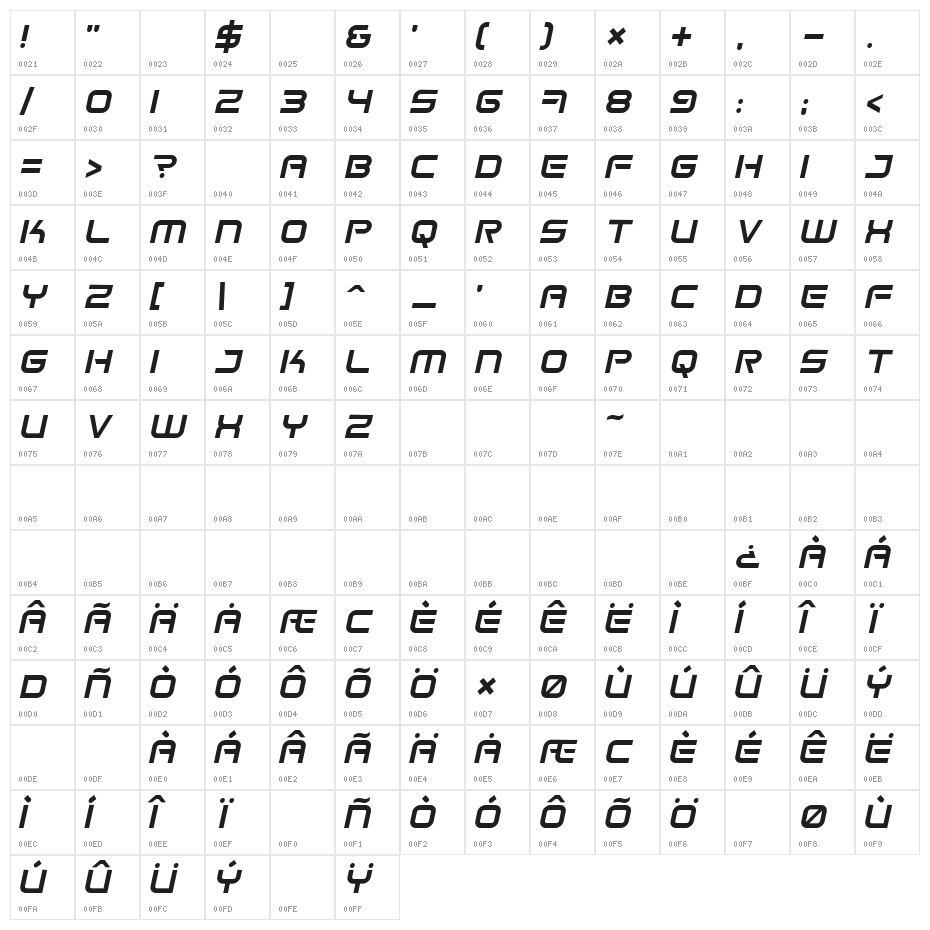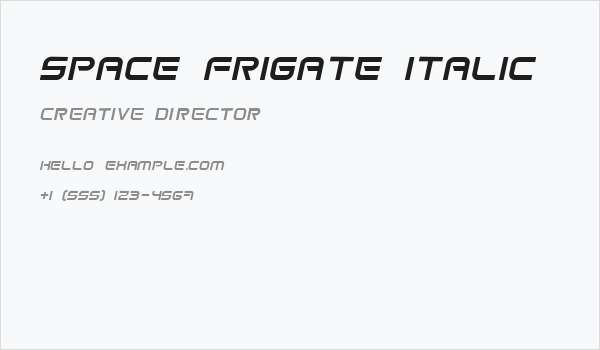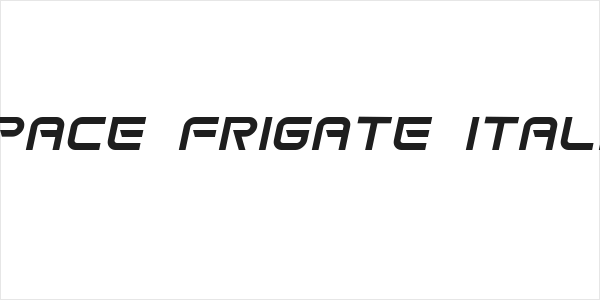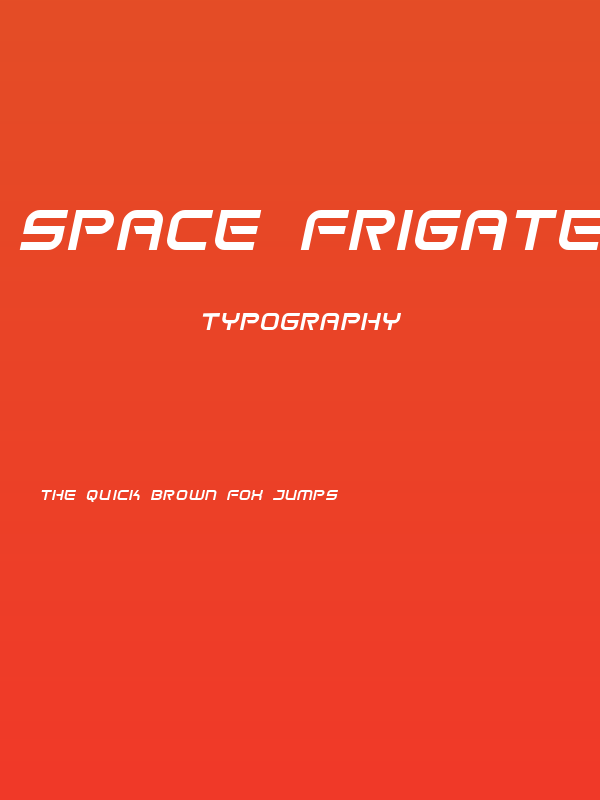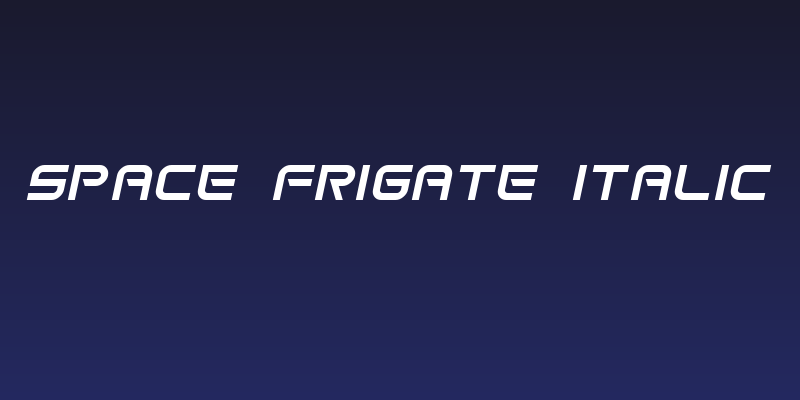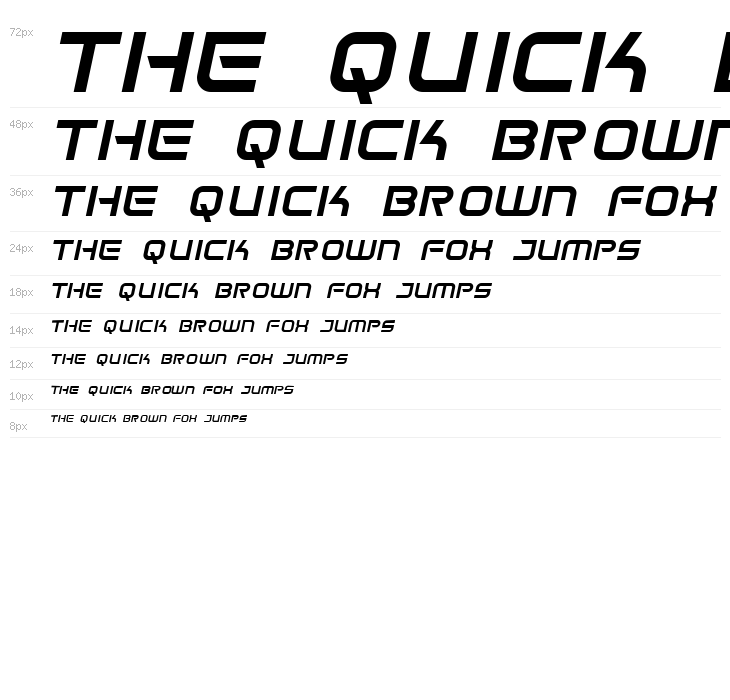
Space Frigate Italic Font
Space Frigate Italic Description
This font features a futuristic and sleek design, characterized by its italicized and angular letterforms. The strokes are consistent in width, giving it a uniform appearance. The characters have a distinct forward slant, enhancing the dynamic and modern feel. The uppercase and lowercase letters maintain a cohesive style, with sharp edges and a slightly condensed form. The numerals and special characters follow the same design principles, ensuring visual harmony across all glyphs. This font's unique style makes it suitable for projects that require a contemporary and tech-inspired aesthetic.
| Use Case | Headlines, Logos, Display text |
| Proposed Projects | Ideal for sci-fi themed designs, technology branding, video game interfaces, and modern advertising. |